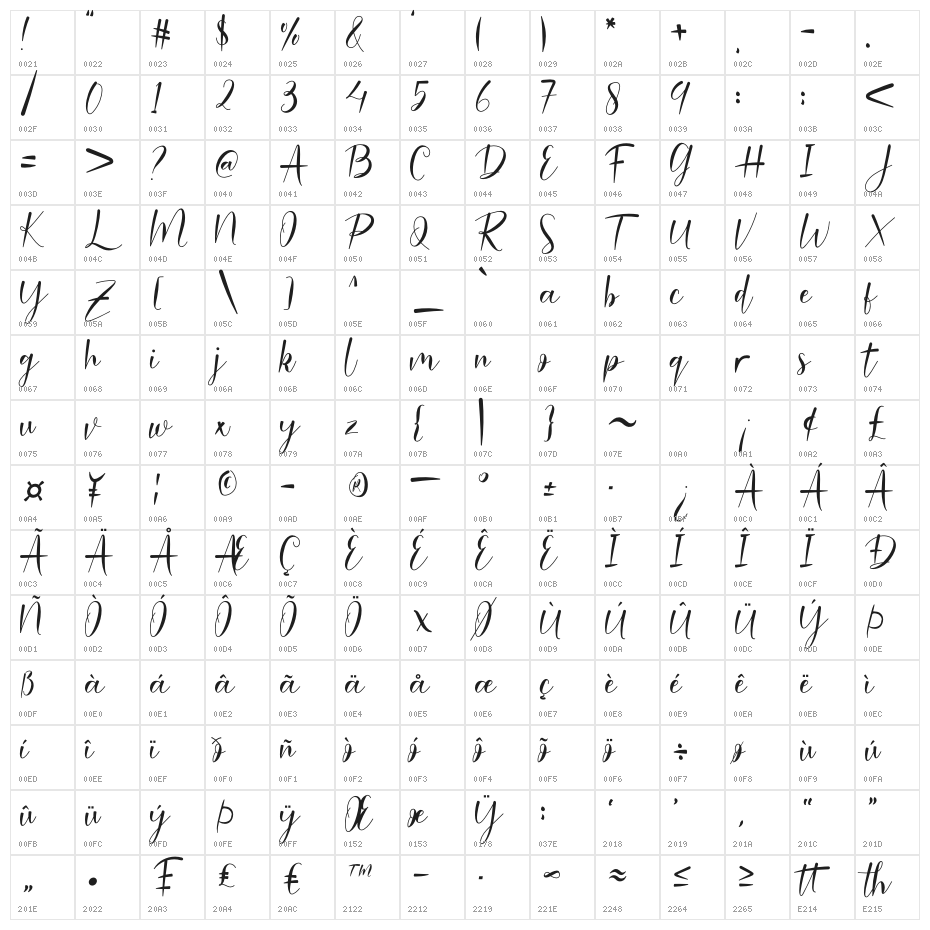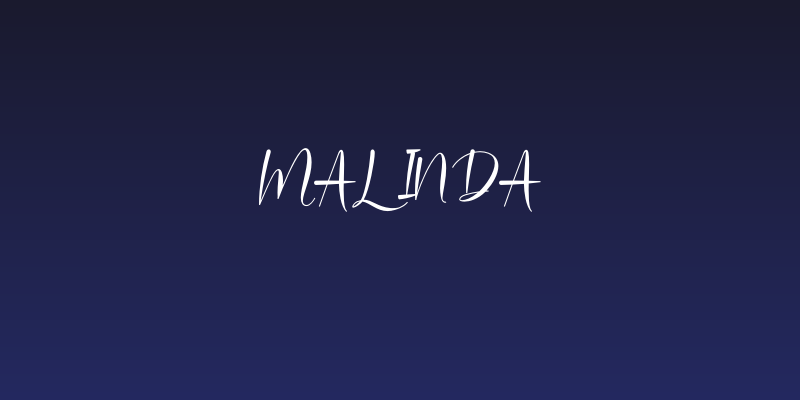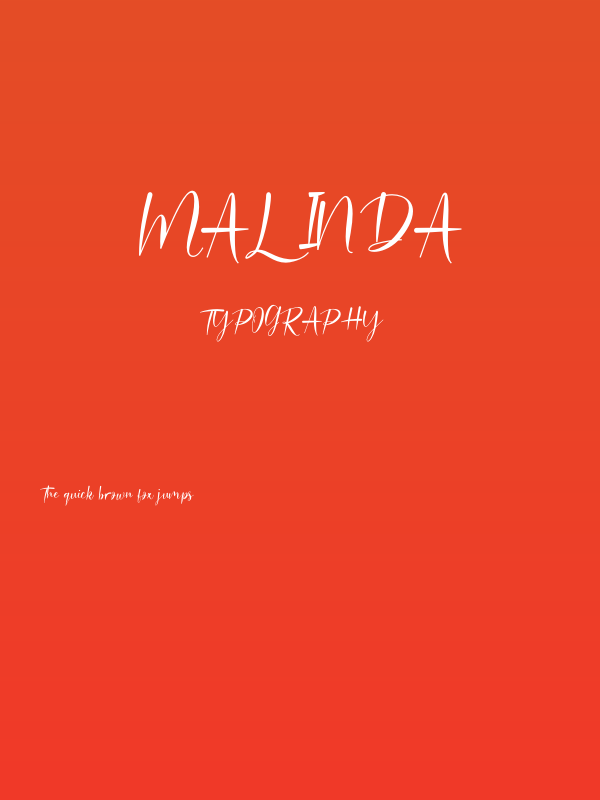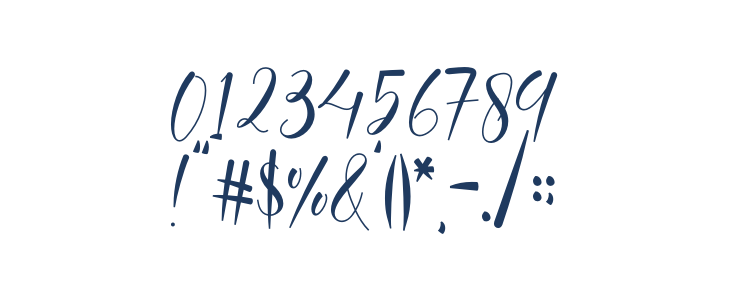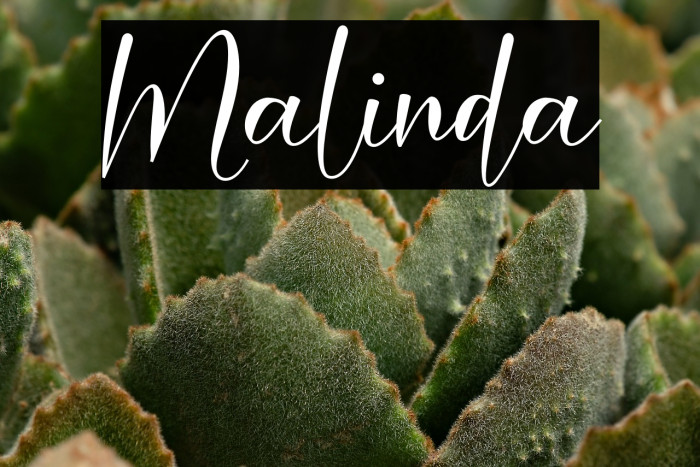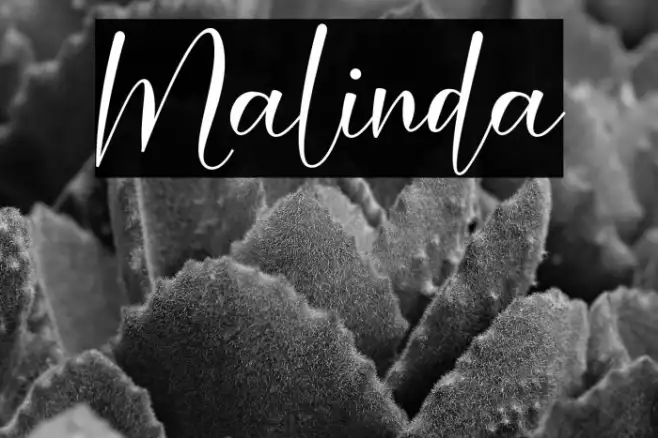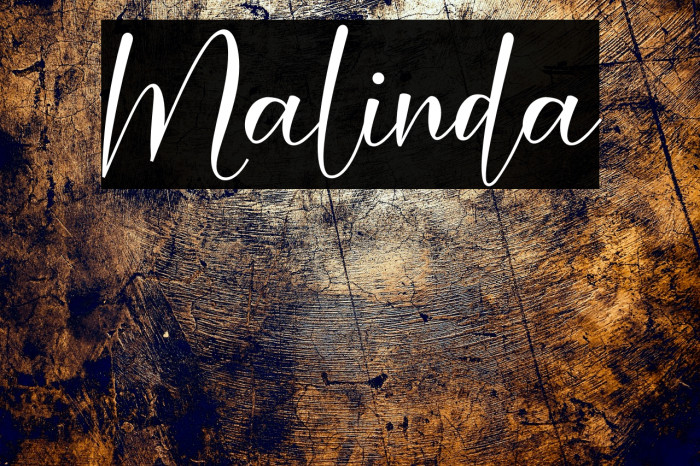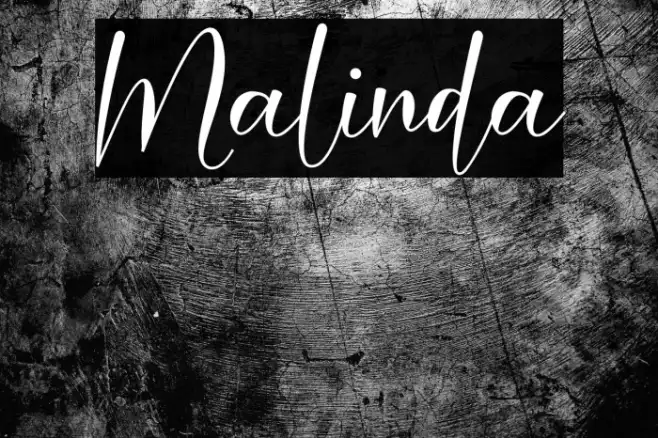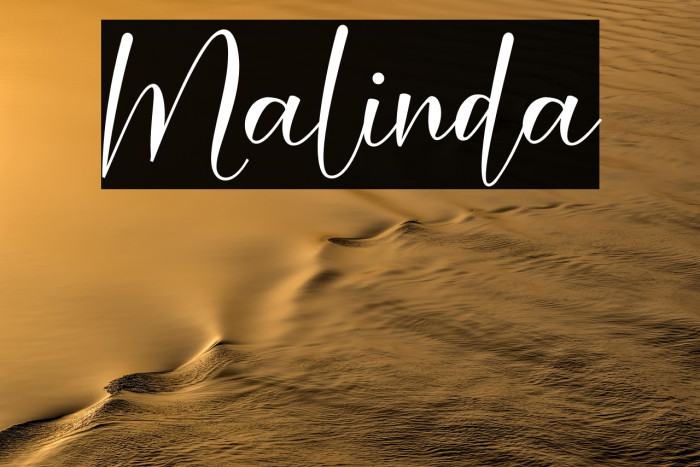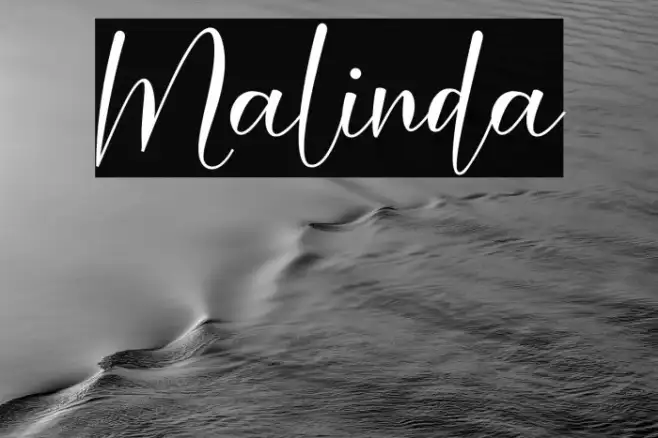
Malinda Font
Malinda Description
This font features a lively and dynamic handwritten style, characterized by its fluid and cursive letterforms. The uppercase letters exhibit a playful yet elegant flair, with varying stroke widths that add a sense of movement and personality. The lowercase letters maintain a consistent flow, complementing the uppercase with their smooth curves and loops. Numbers and special characters are crafted with the same attention to detail, ensuring a cohesive look across all elements. The overall appearance is both modern and approachable, making it suitable for a variety of creative applications.